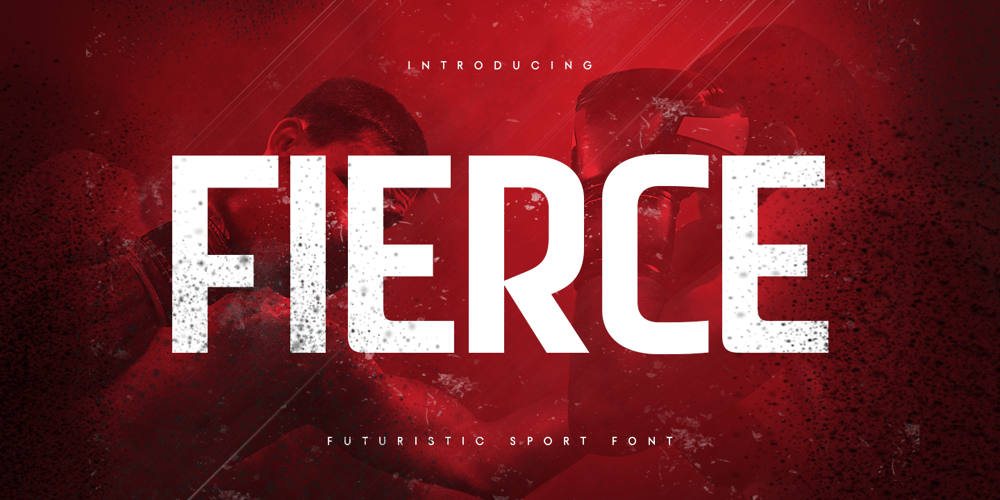
Fierce Font Family was designed by Zamroni Hamzah and published by Sensatype Studio. Fierce contains 1 styles and family package options. Fierce is a Futuristic Sport Font that special created for Sport and Technology design needs with Modern style. A New Sport font that we created special for Modern branding needs, with Futuristic style that ready to add value of your brand. Fierce Futuristic Sport Font ready with: Uppercase and Lowercase characters Numbers and Punctuations Preview as a inspirations that you can do with Fierce font Available for PC and Mac Wish you enjoy our font. ๐